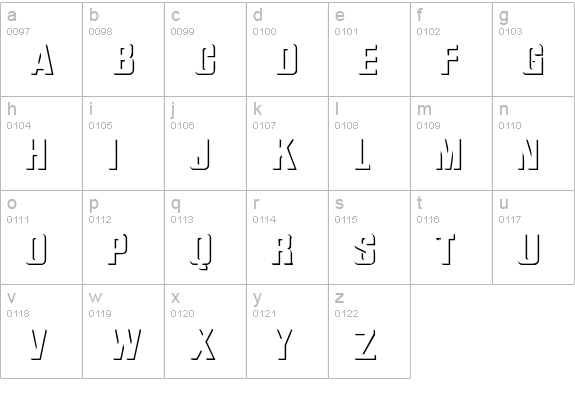
Introducing WhatA-Relief font, a stunning typeface that will take your designs to new heights! With its unique and intricate design, this font is sure to make a lasting impression. Whether you're working on a logo, poster, or any other creative project, WhatA-Relief font will add a touch of elegance and sophistication. What sets WhatA-Relief font apart is not only its captivating aesthetics but also its versatility. It can be used for both bold headlines and delicate body text, making it perfect for any design concept. Its clean lines and balanced proportions ensure readability and visual harmony, making it a go-to choice for professional designers and amateurs alike. But the best part? WhatA-Relief font is absolutely free! That's right - you can download this magnificent font without spending a dime. Simply head over to FontsMarket.com, where you can freely access and download WhatA-Relief font, along with a wide range of other premium fonts. Don't miss out on the opportunity to elevate your design projects with WhatA-Relief font. Download it today and experience the freedom to create stunning visuals that leave a lasting impact.